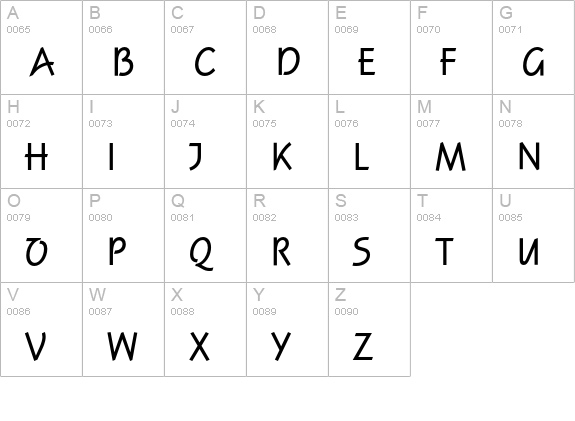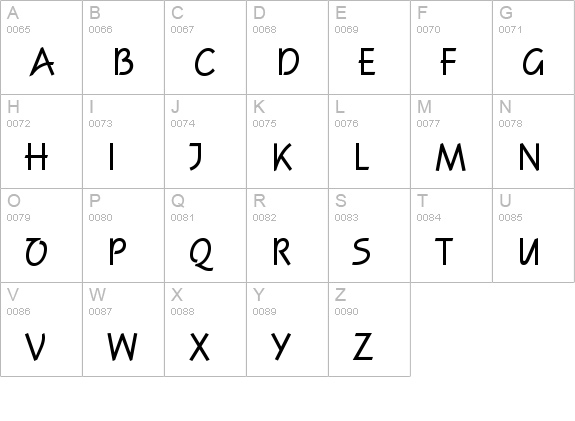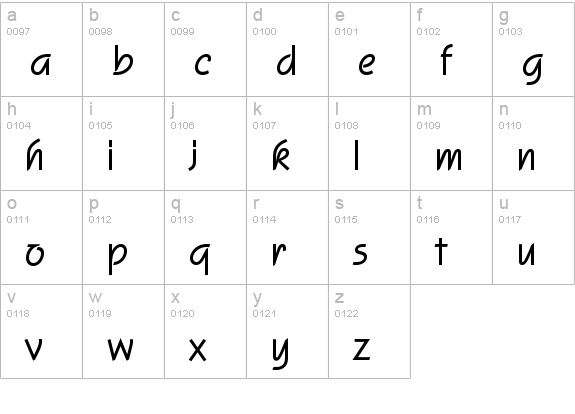
SquireEF-Bold Font Details
SquireEF-Bold is a strong, high-contrast variant in the SquireEF typeface family \xE2\x80\x94 well suited to headlines, attention-grabbing titles, and strong calls-to-action.
SquireEF-Bold font is a bold and impactful typeface that exudes strength and confidence. Its sturdy letterforms and clean lines make it perfect for headlines, titles, and other attention-grabbing designs. With its commanding presence, SquireEF-Bold demands attention and leaves a lasting impression. This font possesses a timeless quality, making it suitable for a wide range of projects across various industries. Whether you're designing a logo, creating marketing materials, or working on a website, SquireEF-Bold will add a touch of sophistication and professionalism to your work. One of the best things about SquireEF-Bold font is that it is freely available to download at FontsMarket.com. This means that you can easily access and use this stunning font without any cost or hassle. FontsMarket.com offers a user-friendly platform that allows you to browse and download a vast collection of high-quality fonts, including SquireEF-Bold. By choosing SquireEF-Bold font, you not only get a visually striking typeface but also the freedom to enhance your designs without breaking the bank. With its bold and captivating style, SquireEF-Bold font is sure to make a statement and elevate your creative projects to new heights. So go ahead and download SquireEF-Bold font today from FontsMarket.com and unleash your design potential.